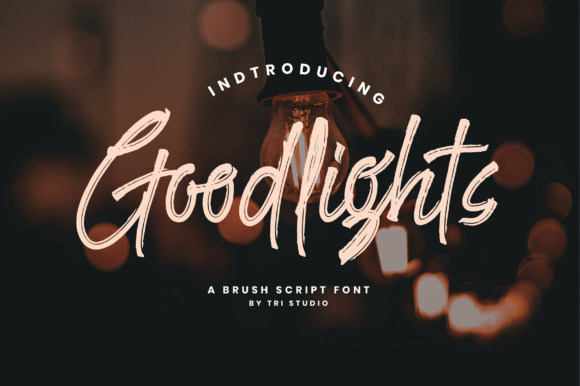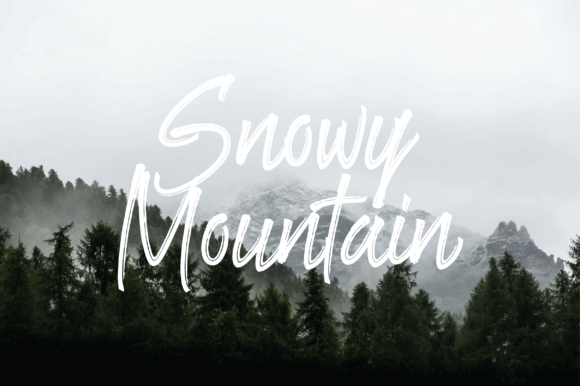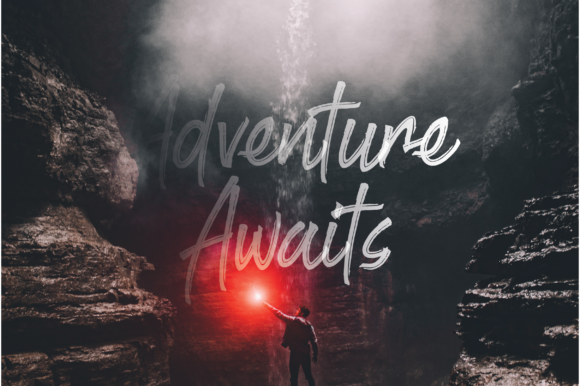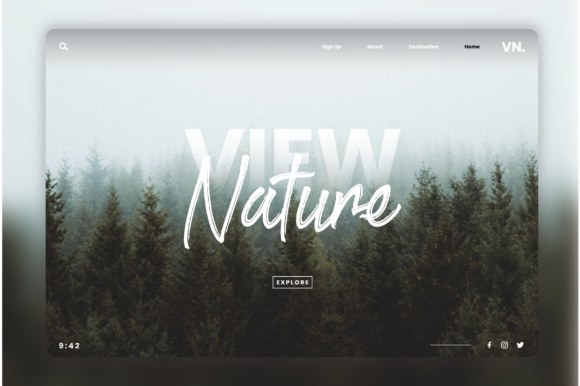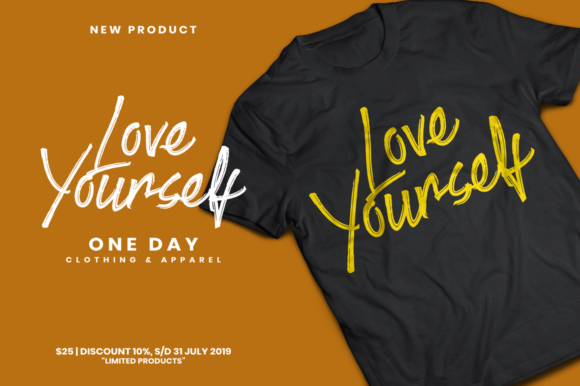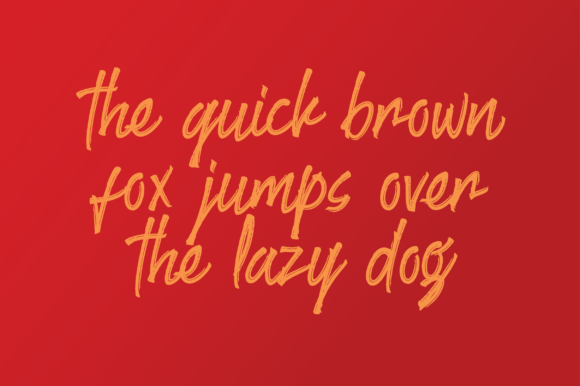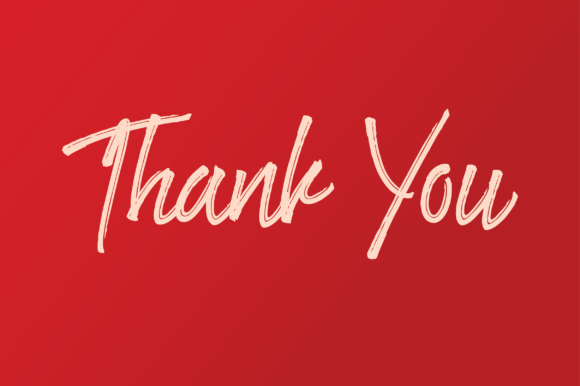
Goodlights Font
About Goodlights Font
Goodlights is a stunning and fun handwritten font with an incredible feel. It will add a rough touch to any design project!